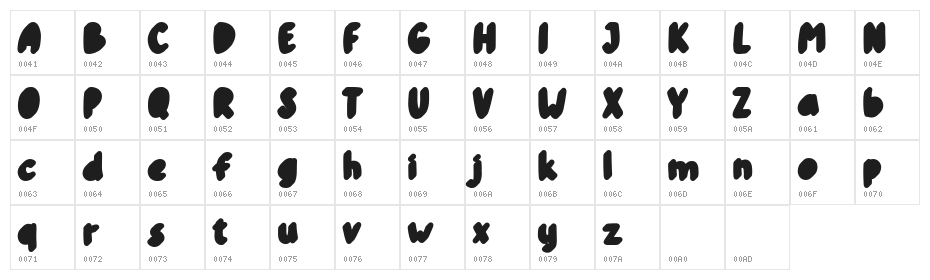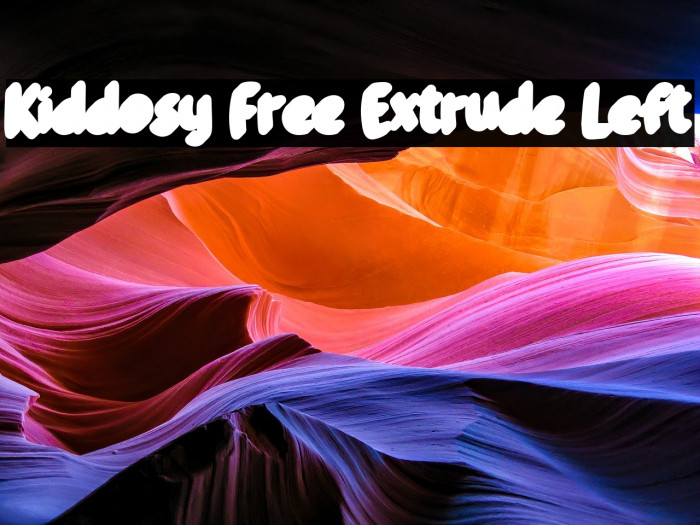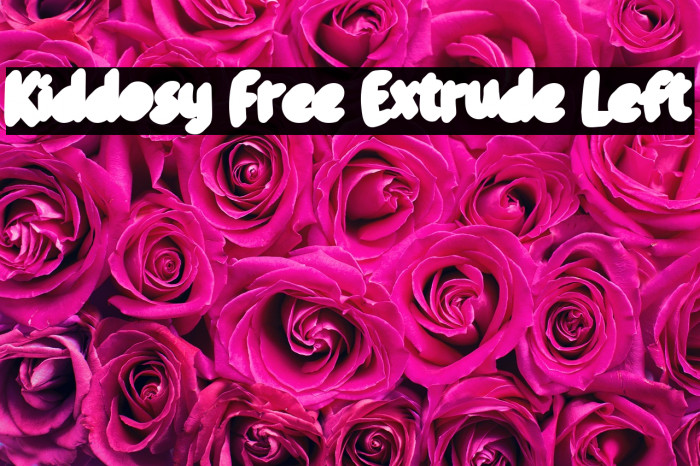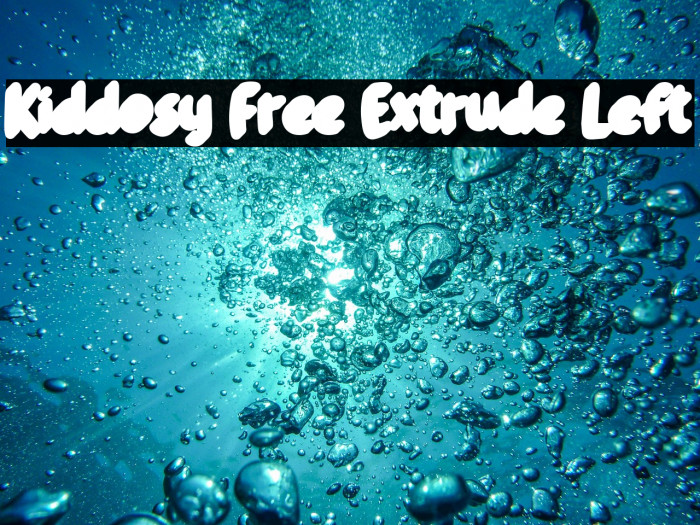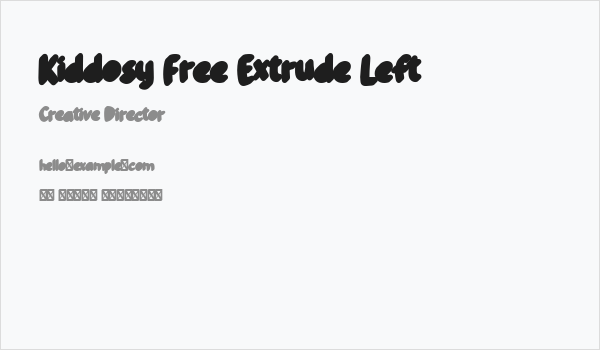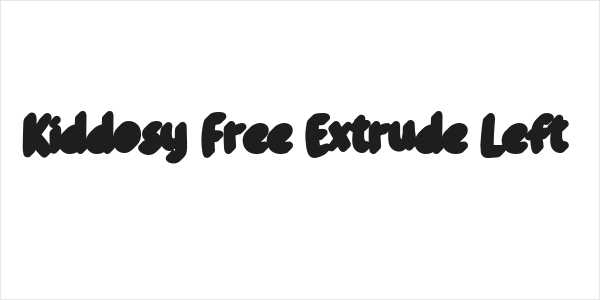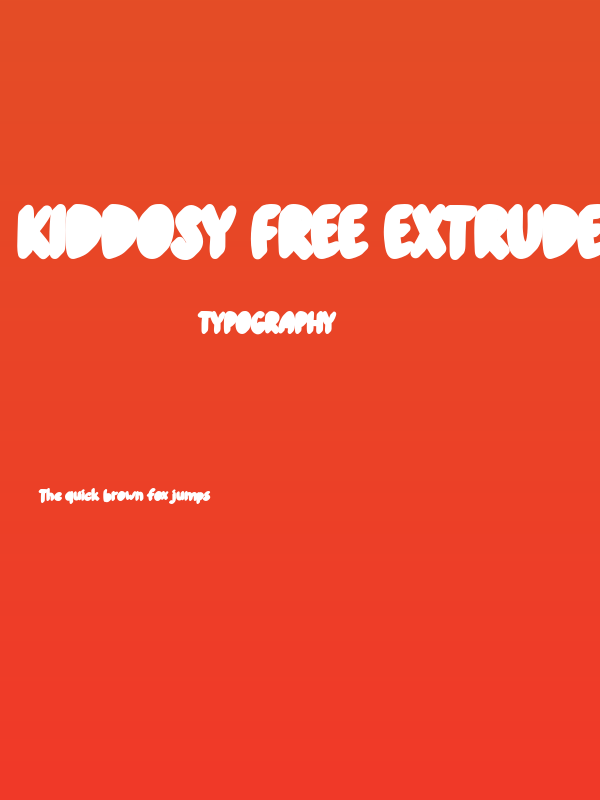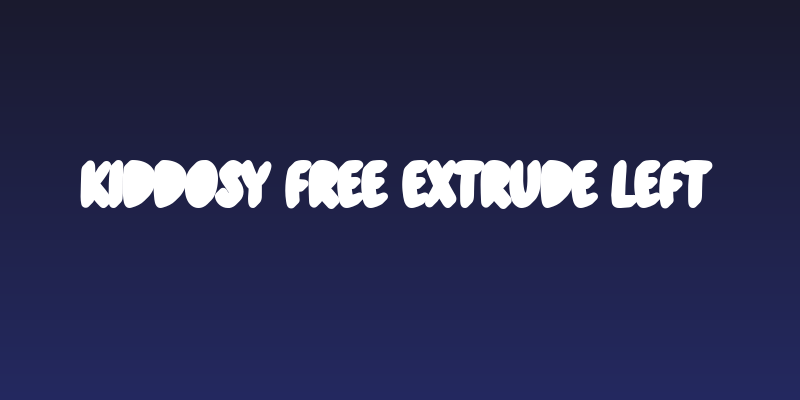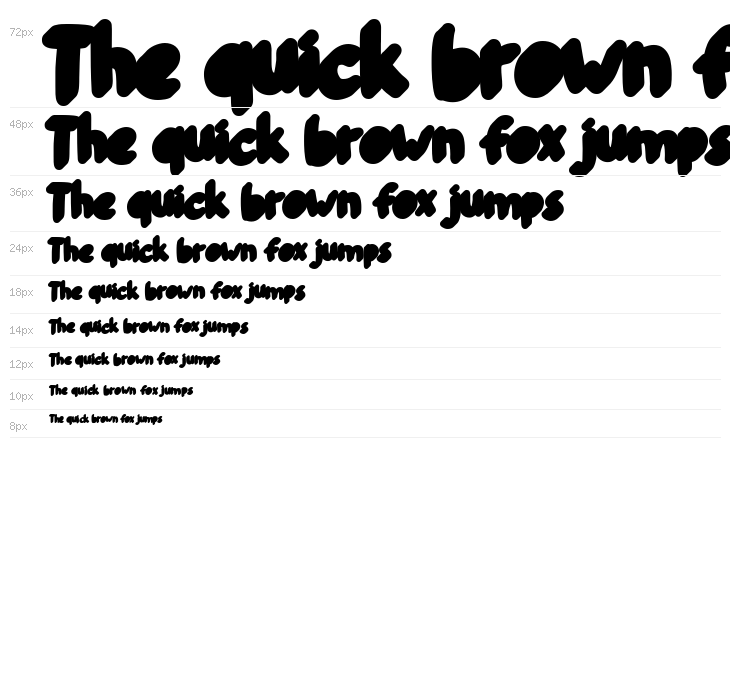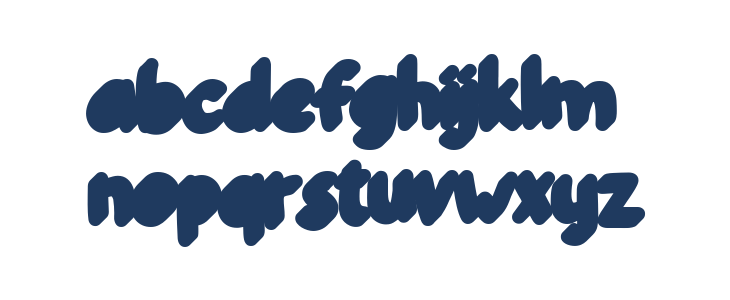
Kiddosy Free Extrude Left Font
Kiddosy Free Extrude Left Description
This playful and bold font features a thick, rounded style with a strong presence. The characters are heavily weighted, giving them a solid and substantial appearance. The rounded edges and uniform thickness throughout each letter create a friendly and approachable feel. This font is highly decorative, with an emphasis on fun and creativity, making it ideal for projects that require a lively and energetic touch. The consistent stroke width and lack of contrast contribute to its cohesive and unified look, while the exaggerated curves and shapes add a whimsical element.
| Overall Style | Playful, Decorative |
| Proposed Projects | Perfect for children's books, playful branding, party invitations, and creative posters. |